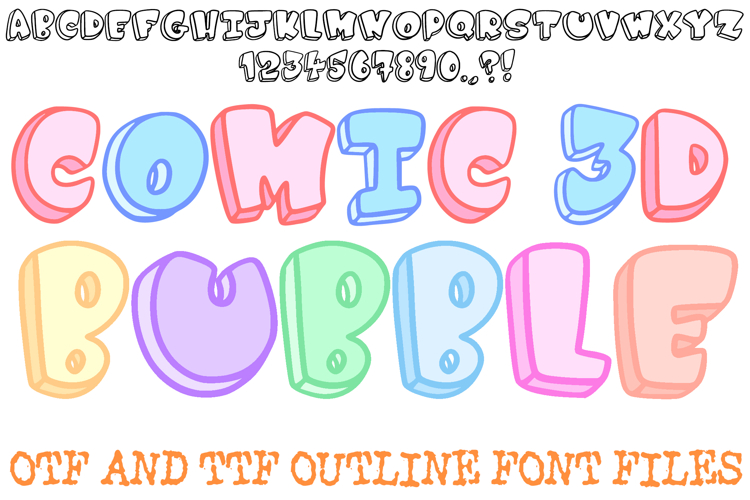
Give your designs a punch of personality with the Comic 3D Bubble Font! This hand-drawn display alphabet features bold, rounded block characters that lean into a classic, energetic comic book aesthetic. With its thick outlines, friendly, inflated silhouette, and clean dimensional shadows, it is the perfect choice for high-impact social media headlines, playful branding, children’s apparel, and vibrant YouTube thumbnails.
The "pop-art" feel of each character makes your text stand out, providing a sense of depth and volume without losing legibility. Whether you are creating a superhero-themed birthday invite or an edgy streetwear logo, the Comic 3D Bubble Font delivers a fun, professional look that captures attention instantly.
Bold Inflated Perspective: Every character features a consistent, soft, balloon-like shape and a detailed 3D drop shadow, giving your words a heavy, physical presence.
Clean Sketched Outlines: The slightly irregular, hand-inked borders provide an artisan feel that avoids the stiffness of standard digital fonts.
High Legibility: Despite its thick, chunky weight, each letter is designed with clear open counters to ensure readability across all sizes.